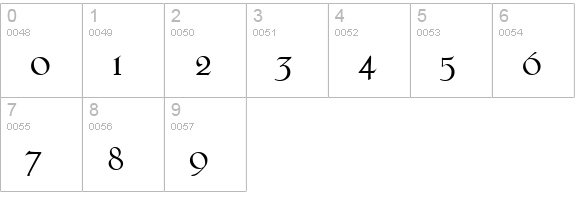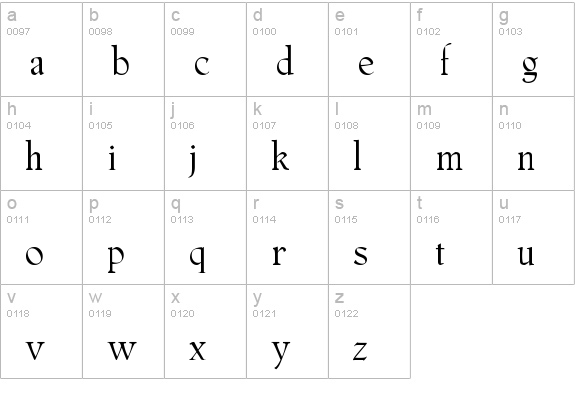
Cosenza Font Details
Cosenza font is a stunning display typeface that exudes elegance and sophistication. With its sleek lines and modern aesthetic, Cosenza is perfect for adding a touch of class to any design project. Whether you're creating a logo, branding materials, or editorial layouts, this font will make a bold statement. The best part? Cosenza font is completely free to download at FontsMarket.com. That's right, you can enhance your designs with this beautiful typeface without spending a dime. Don't miss out on the opportunity to elevate your projects with Cosenza font - download it now and let your creativity shine!